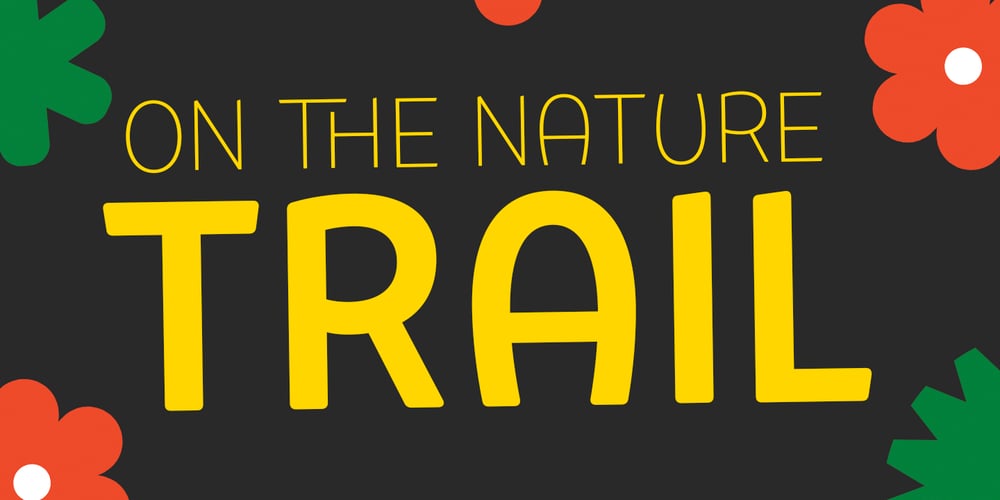
Picaflor Soft
Picaflor Soft font
Picaflor Soft Font Family was designed by Rodrigo Araya Salas, Bruno Jara Ahumada and published by RodrigoTypo. Picaflor Soft contains 6 styles and family package options. Picaflor soft, is a continuation of “Picaflor” now in a rounded version, especially for titles, it contains different styles from Thin-Black, in addition to multiple languages